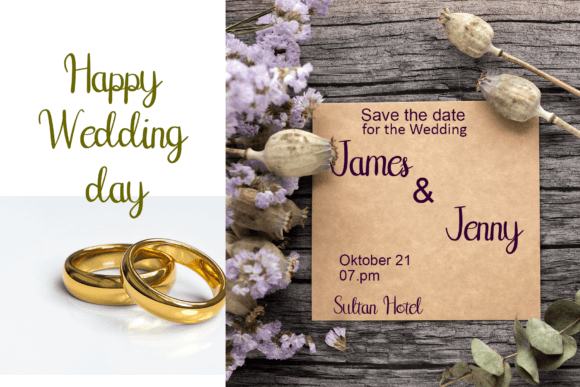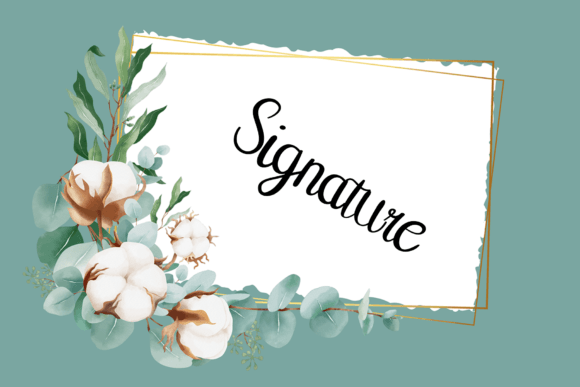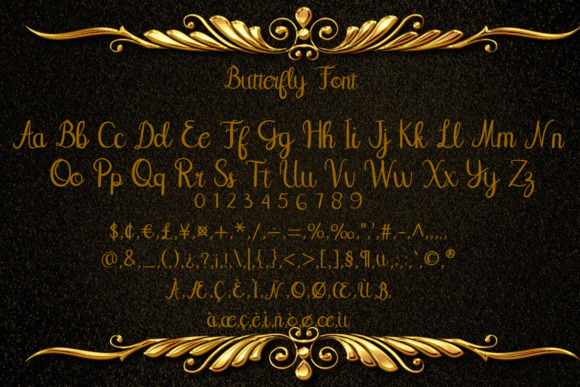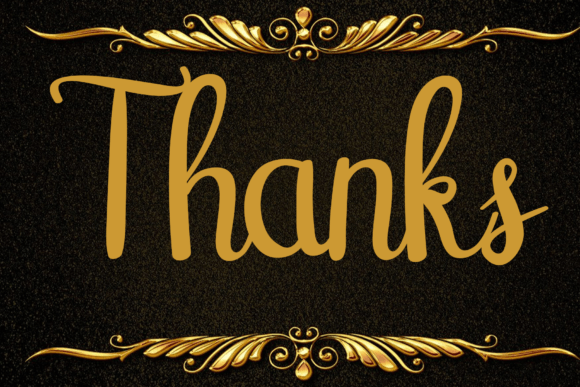
Introducing Butterfly Font: Elevate Your Designs with Elegance
Are you tired of using the same old fonts in your designs? Look no further than Butterfly Font, a beautiful and elegant handwritten font that’s sure to take your projects to the next level. With its varied baselines, smooth lines, and classy calligraphic influence, Butterfly Font is the perfect choice for designers and crafters looking to add a touch of sophistication to their work.
What Makes Butterfly Font So Special?
Butterfly Font is a unique and eye-catching font that features a flowing, handwritten style. Its elegant and refined appearance makes it perfect for a wide range of design projects, from wedding invitations and branding materials to social media graphics and more. The font’s varied baselines and smooth lines give it a natural, organic feel that’s both contemporary and fresh.
The Benefits of Using Butterfly Font
So why choose Butterfly Font for your next design project? Here are just a few benefits of using this beautiful font:
- Elegance and sophistication: Butterfly Font adds a touch of class and refinement to any design project.
- Versatility: This font is perfect for a wide range of design projects, from formal events to everyday branding materials.
- Uniqueness: Butterfly Font’s unique and eye-catching style sets it apart from more traditional fonts.
- Easy to read: Despite its elegant appearance, Butterfly Font is easy to read and understand, making it perfect for body text and headlines.
How to Use Butterfly Font in Your Designs
Butterfly Font is easy to use and can be incorporated into a wide range of design projects. Here are a few ideas to get you started:
- Wedding invitations and stationery: Butterfly Font is perfect for wedding invitations, save-the-date cards, and other formal stationery.
- Branding materials: Use Butterfly Font to add a touch of elegance to your business cards, letterhead, and other branding materials.
- Social media graphics: Butterfly Font is a great choice for social media graphics, including Facebook and Instagram posts, as well as Twitter headers and more.
- Packaging design: Add a touch of sophistication to your product packaging with Butterfly Font.
Tips for Getting the Most Out of Butterfly Font
Here are a few tips for getting the most out of Butterfly Font:
- Experiment with different colors: Butterfly Font looks great in a wide range of colors, from classic black and white to bold and bright hues.
- Play with font sizes: Experiment with different font sizes to create visual interest and hierarchy in your designs.
- Combine with other fonts: Butterfly Font pairs well with a wide range of other fonts, so don’t be afraid to experiment with different combinations.
In conclusion, Butterfly Font is a beautiful and elegant handwritten font that’s perfect for designers and crafters looking to add a touch of sophistication to their work. With its varied baselines, smooth lines, and classy calligraphic influence, Butterfly Font is sure to take your projects to the highest level. So why wait? Fall in love with Butterfly Font and start creating stunning designs today!
Key Features of Butterfly Font
- Elegant and flowing handwritten font
- Varied baselines and smooth lines
- Classy calligraphic influence
- Contemporary and fresh feel
- Perfect for a wide range of design projects